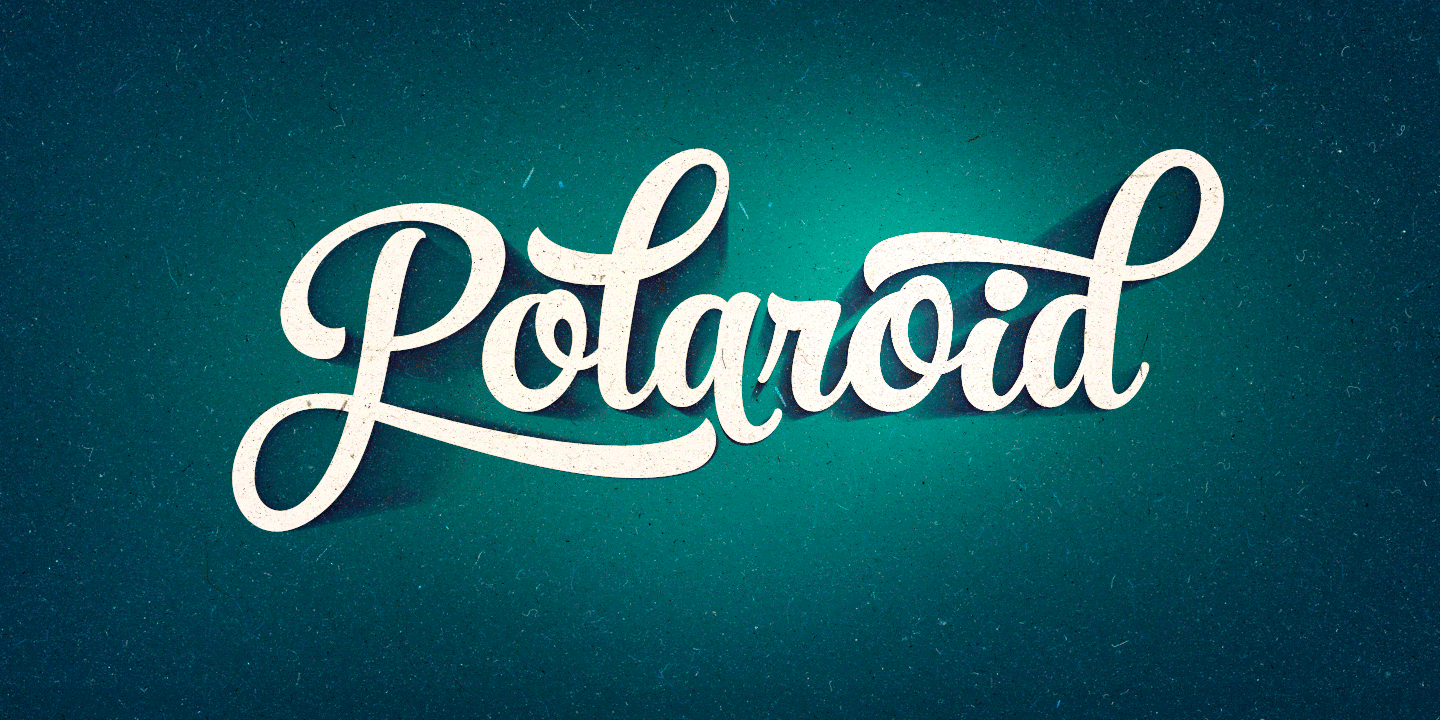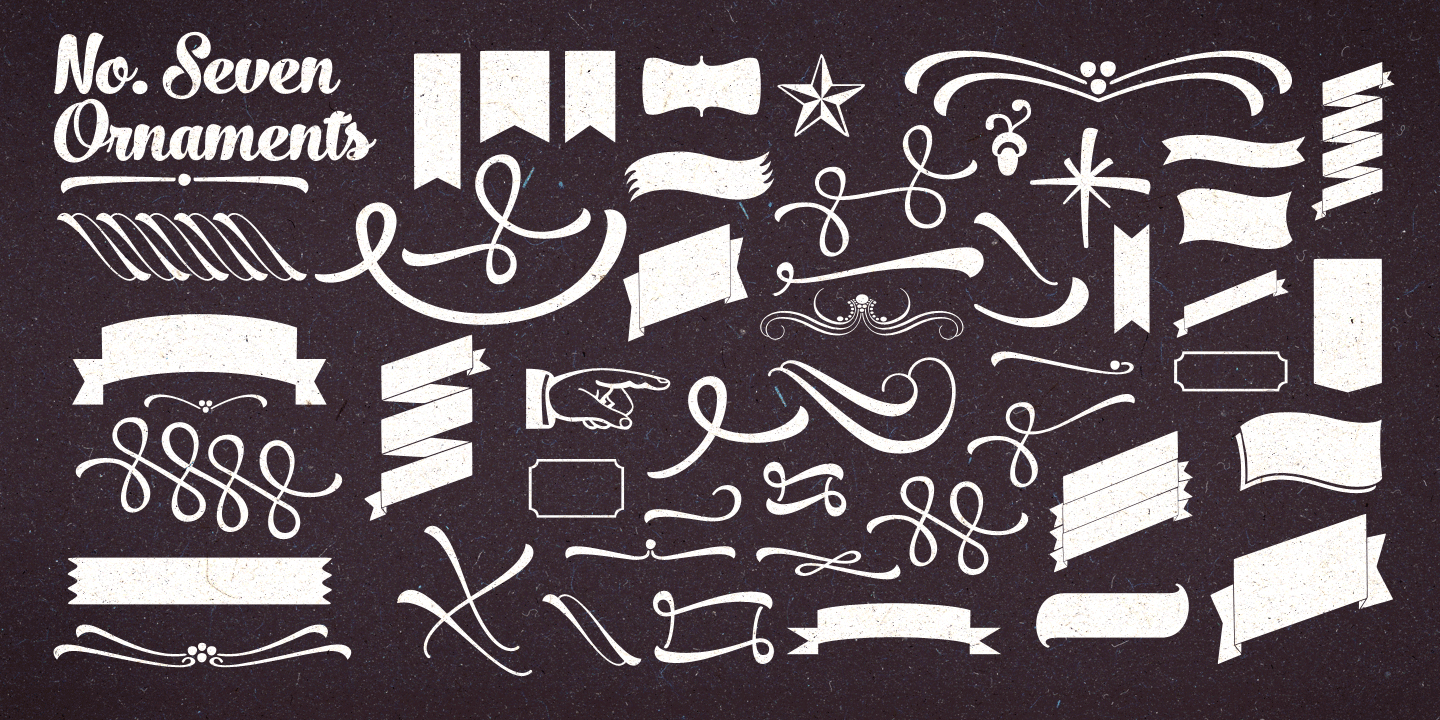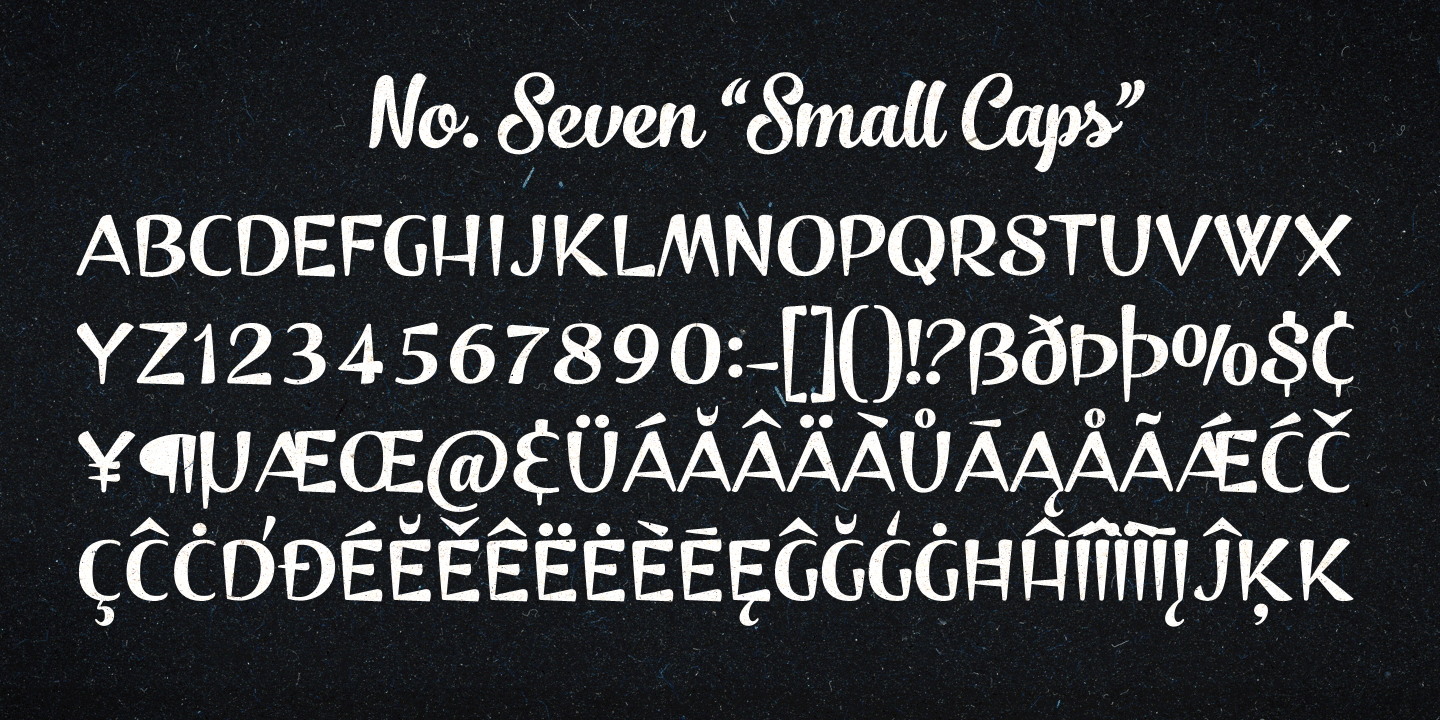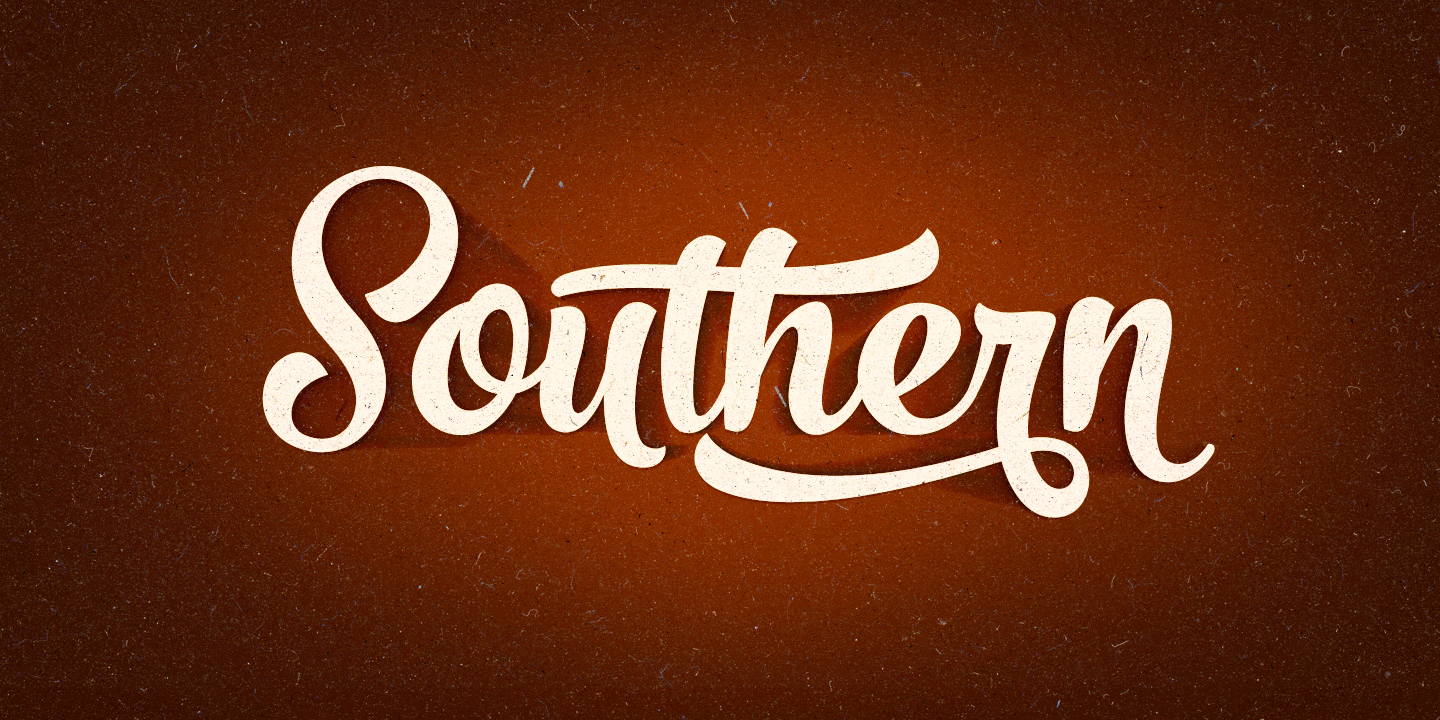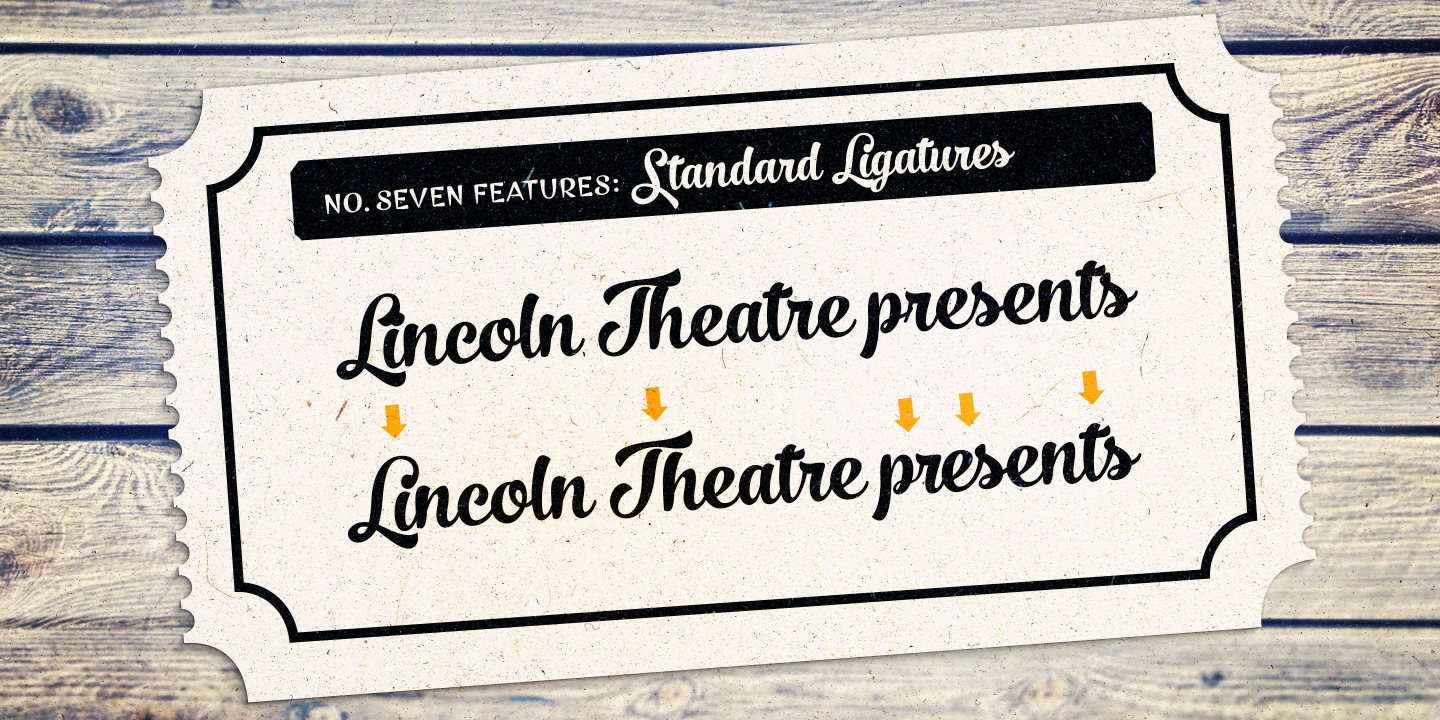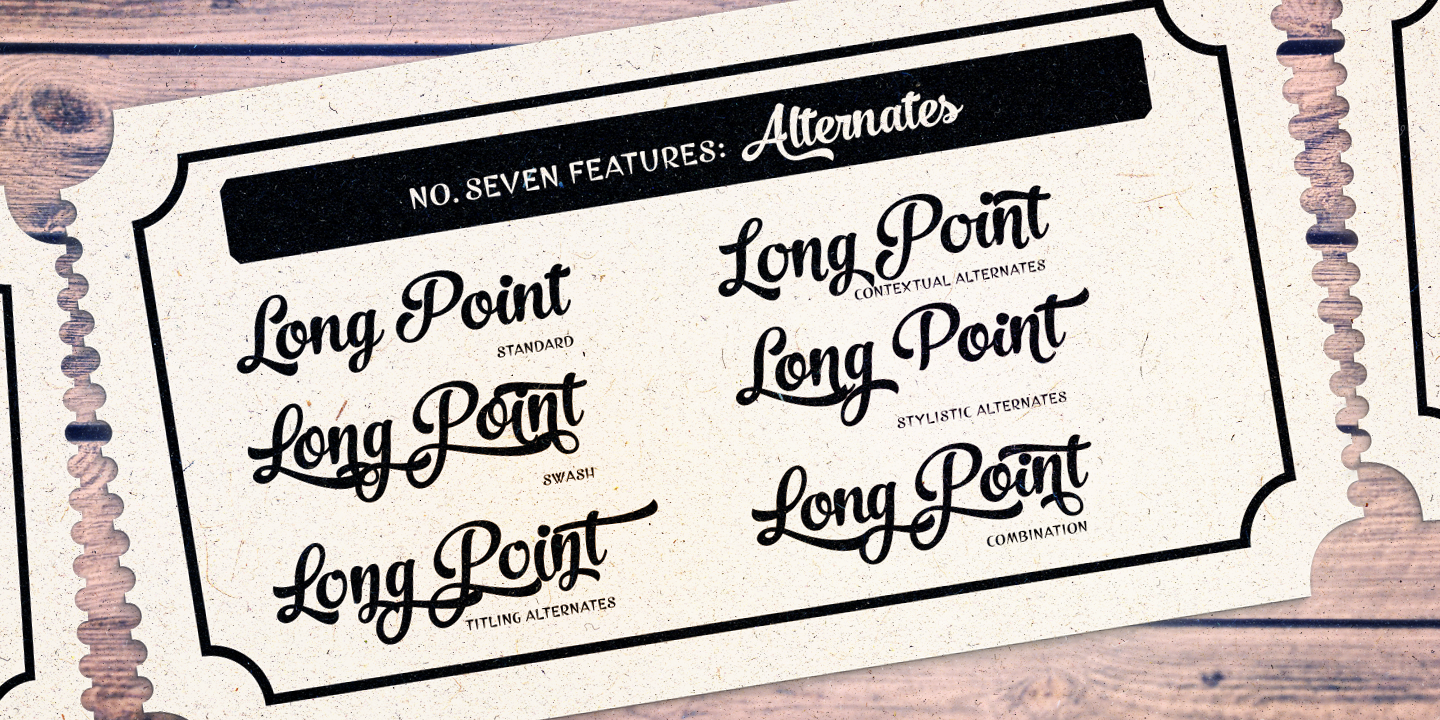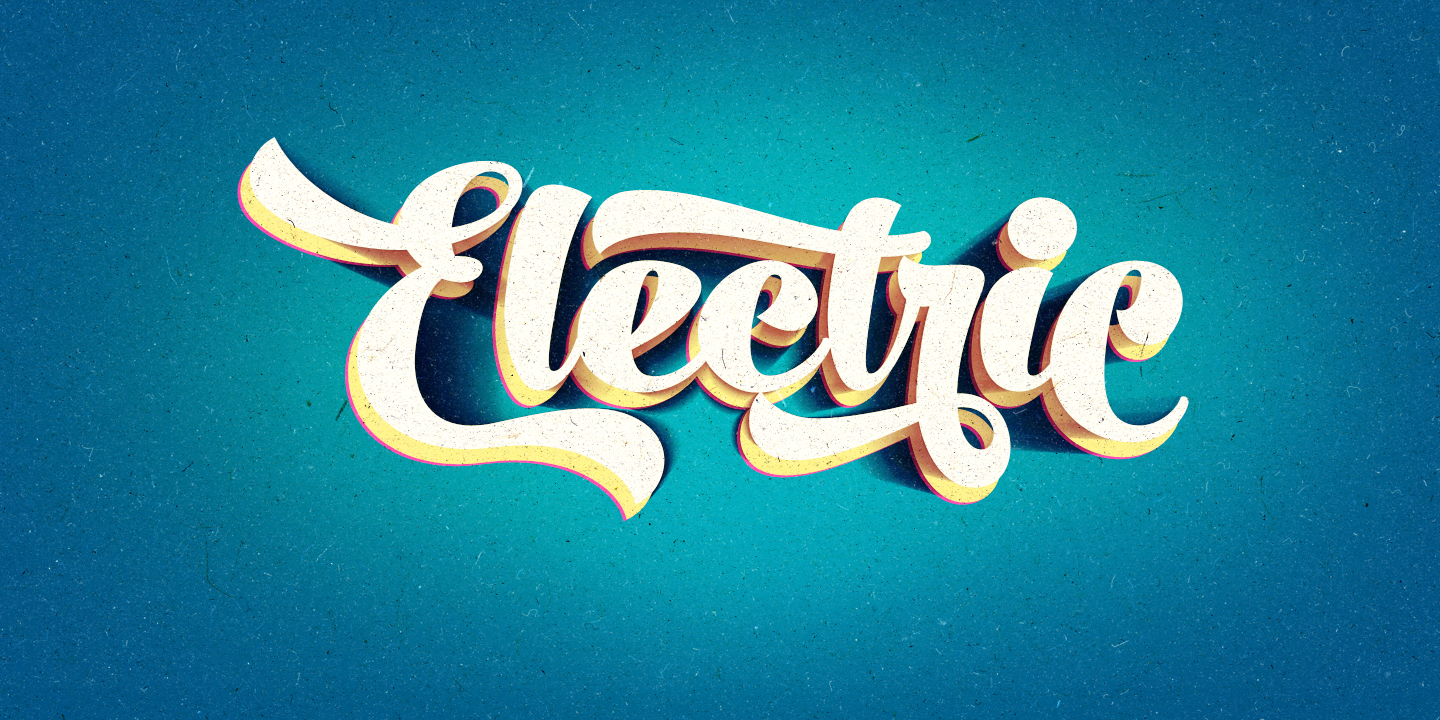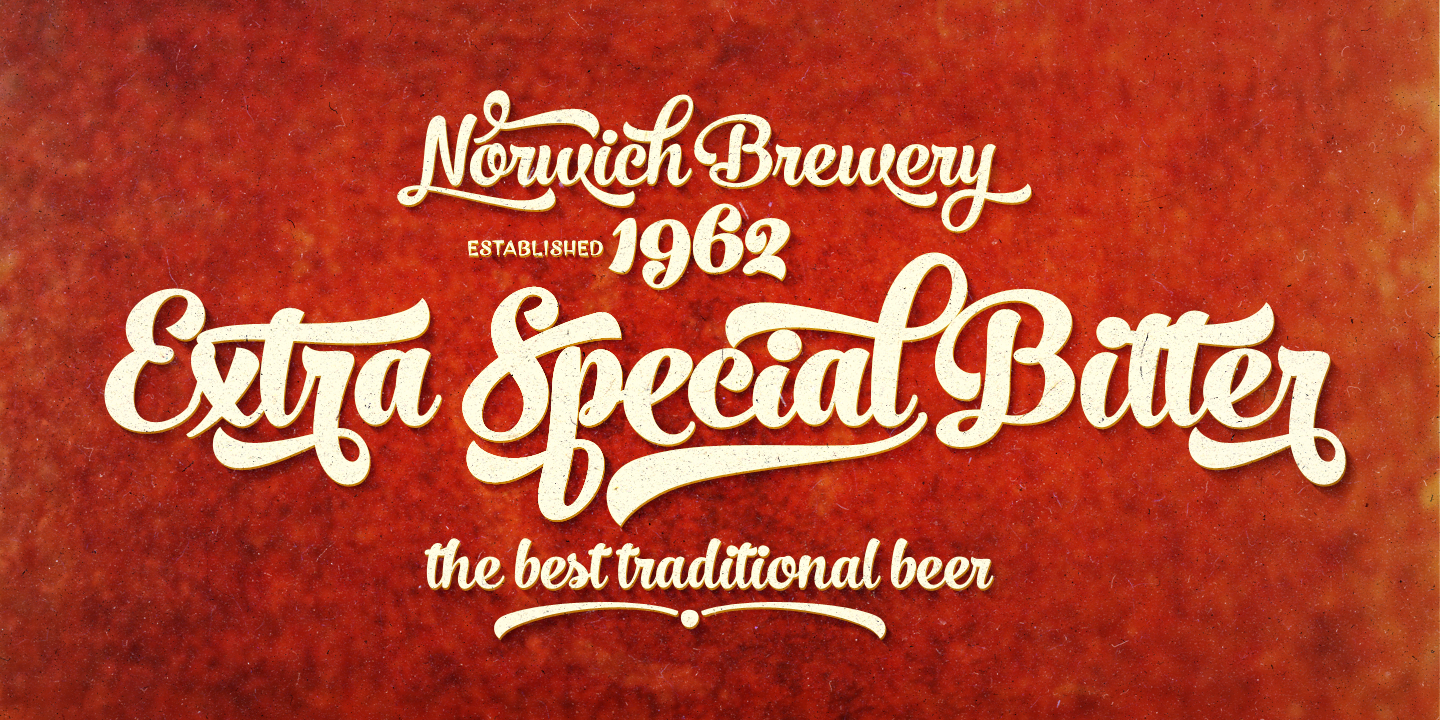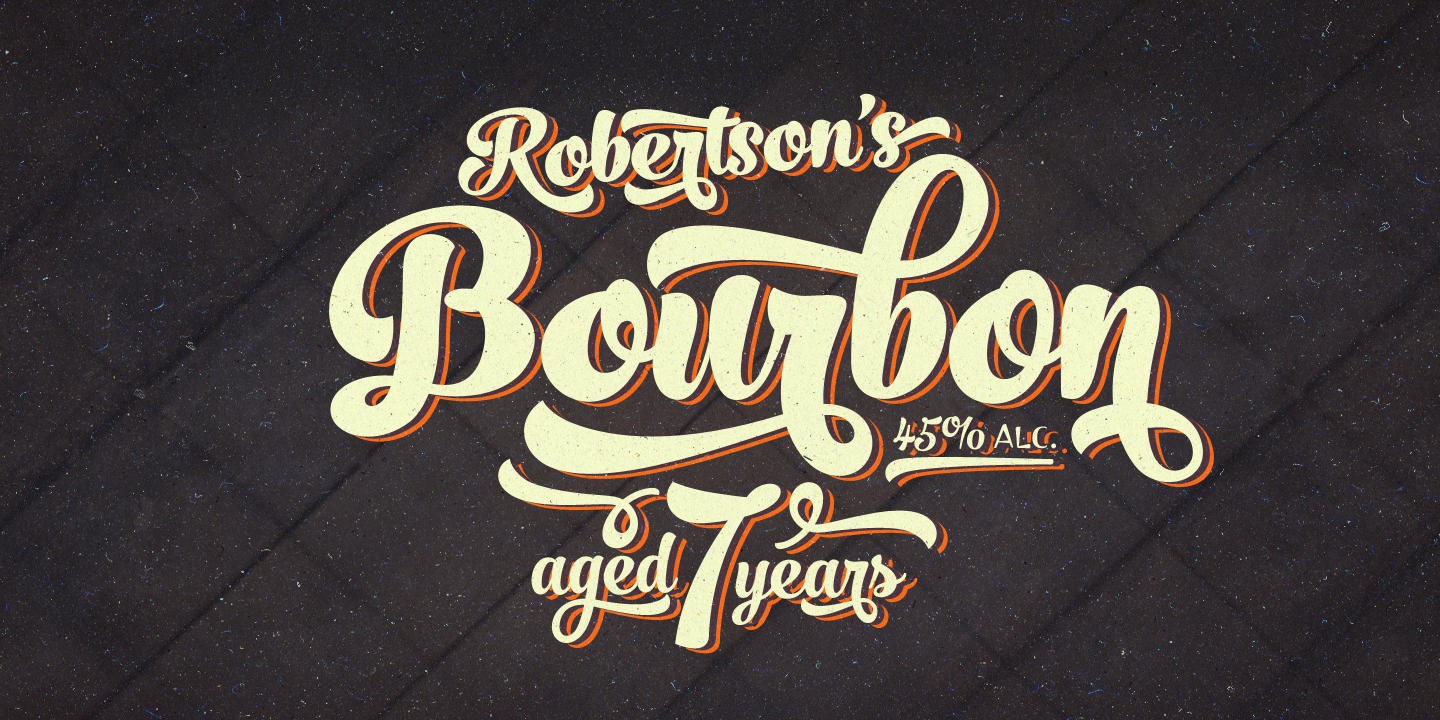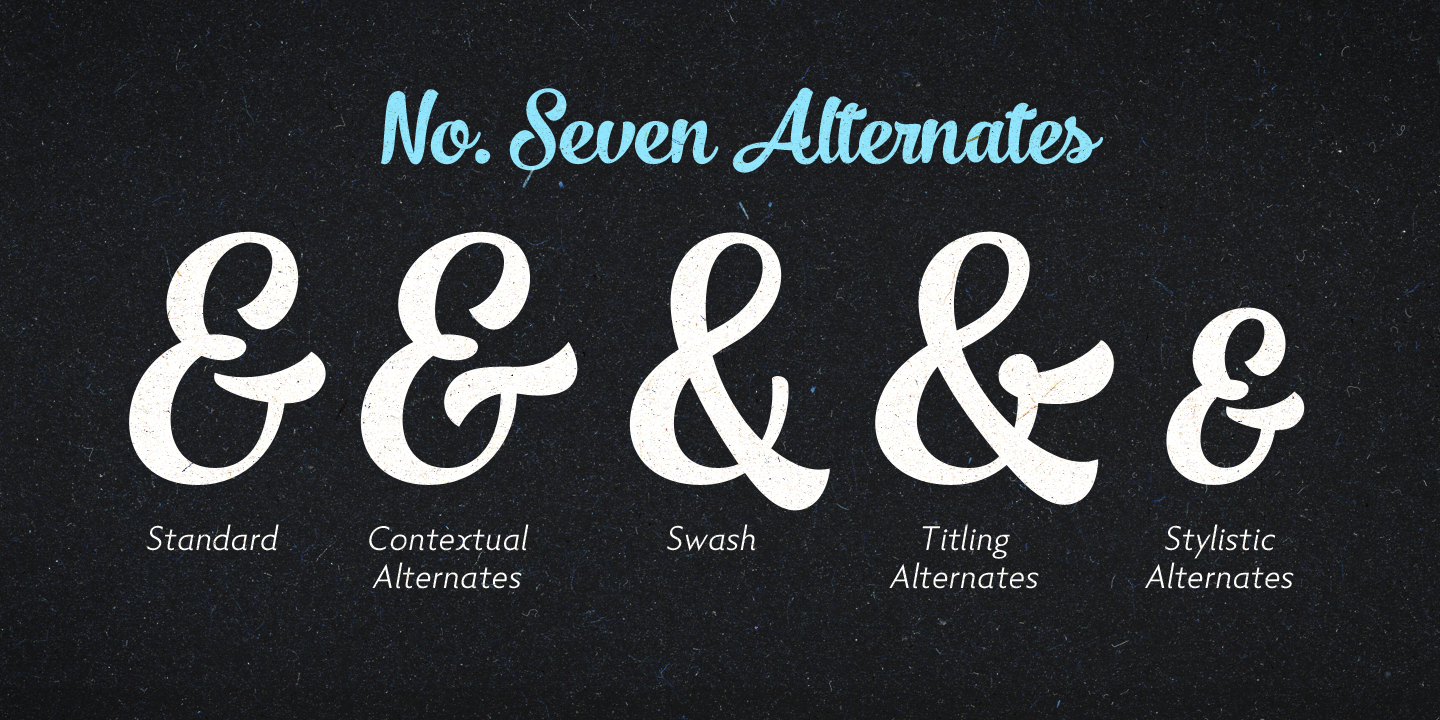
Combine No. Seven with No. Seven Ornaments and No. Seven Small Caps to complete your designs.
No. Seven is an effective font for creating ambitious headlines, logos & posters with a custom-made feeling.